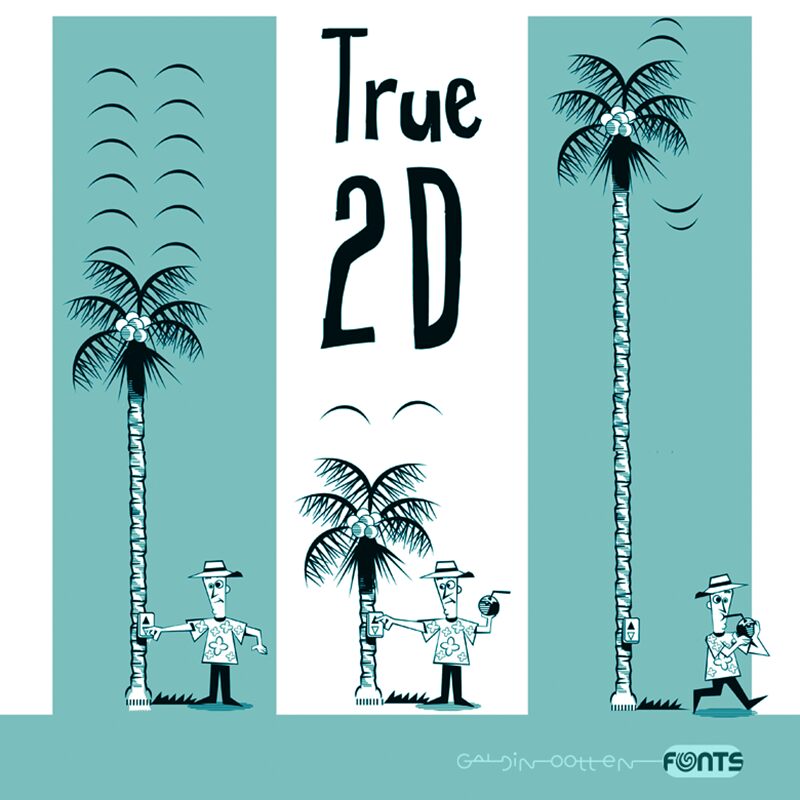
True 2D
True 2D font by Galdino Otten Fonts is a cartoon display font that brings a hand-drawn aesthetic to every letter. Equipped with uneven textures, irregular proportions, quirky characters, and a light condensed design; this free font has an artistic appeal that is both casual and fun! With all aspects considered, it’s safe to say the typeface is full of imperfect perfections.
It would be suitable almost with any style of youthful graphic design involving food packaging for snacks, sweets, comic books or posters. Download and implement it in apps for social media post editing from smartphone apps or web platforms. Blog covers, greeting cards, typography logos are of course always an option for designers who can get access to creative software such as Adobe Illustrator and Photoshop.